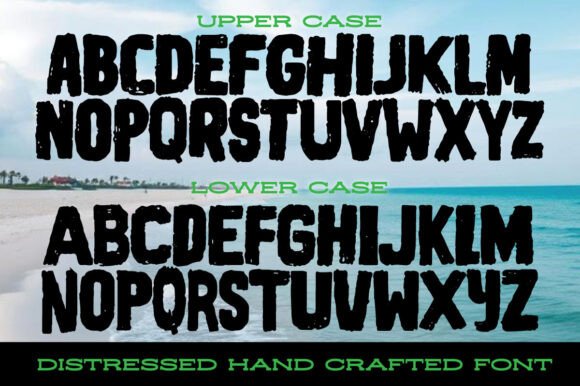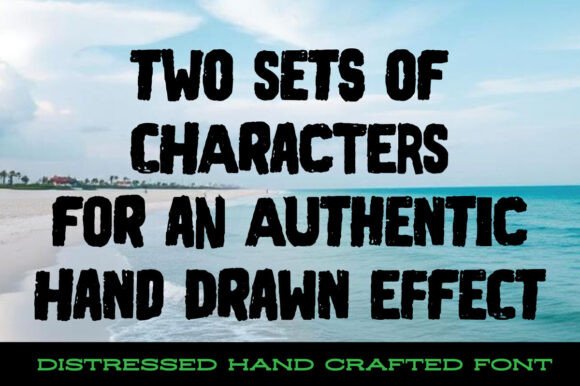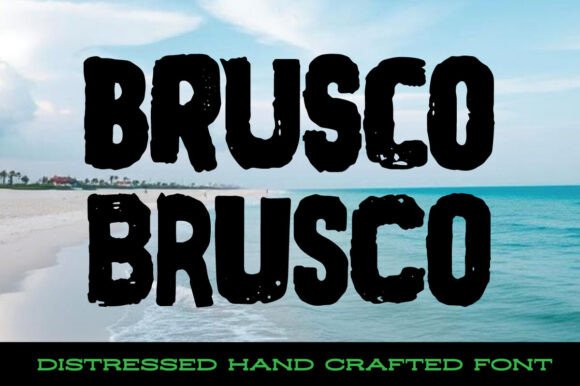
The Brusco Font: A Hand-Painted Masterpiece for Creative Designs
I’ll never forget the design project that led me to discover the Brusco font. I was working on a logo for a local art studio, and I wanted to capture the essence of handmade, artistic vibes. After hours of scrolling through font libraries, I stumbled upon Brusco – a bold, hand-painted font that instantly spoke to me. Its unique texture and expressive feel perfectly complemented the studio’s brand, and I knew right then that I’d found the perfect fit.
- 💥 **Expressive and dynamic**: Brusco’s hand-painted feel adds a level of personality to any design.
- ✅ **Variety of characters**: The font features two distinct sets of characters, giving you plenty of options for creative experimentation.
- 🎨 **Texture and artistry**: The font’s textured style brings a sense of artistry and individuality to your designs.
- 🖌️ **Perfect for creative projects**: Logos, headlines, posters, and more – Brusco is ideal for designs that demand a handcrafted touch.
- ⚠️ **Limited use in body text**: Due to its bold and textured nature, Brusco might not be the best choice for lengthy paragraphs.
- ⚠️ **Occasional inconsistencies**: As a hand-painted font, Brusco may exhibit slight inconsistencies in character spacing or size.
Brusco was created by a talented type designer who drew inspiration from traditional hand-painted signs and street art. The designer’s goal was to capture the expressive, dynamic feel of authentic brushwork in a digital font. Through countless hours of research, sketching, and refinement, Brusco was born – a bold, hand-painted font that embodies the spirit of creativity and artistry.
| What type of projects is Brusco best suited for? | Brusco is perfect for creative projects, logos, headlines, posters, and designs that demand a handcrafted touch. |
| Is Brusco available in multiple languages? | Brusco may not support all languages, but it does include a range of characters and glyphs to accommodate various languages. |
| Can I use Brusco in both print and digital designs? | Absolutely! Brusco’s versatility makes it suitable for both print and digital designs, from business cards to social media graphics. |